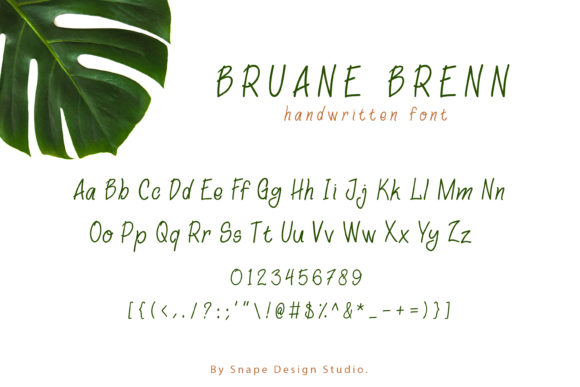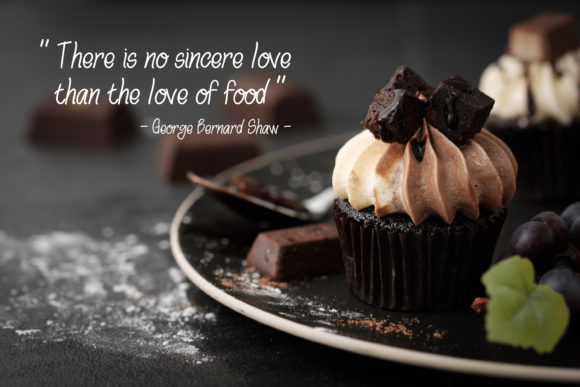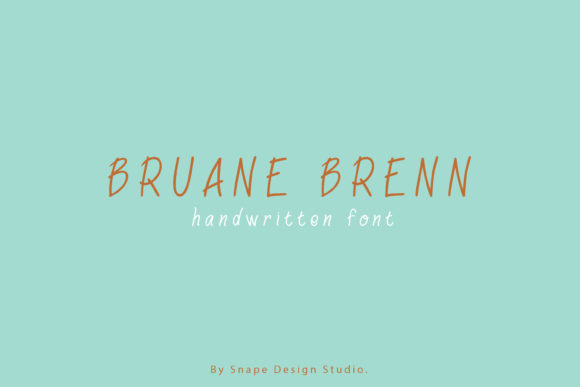
Bruane Brenn Font: A Sweet and Simple Handwritten Typeface
In the world of typography, a good font can make all the difference in the success of a design project. For designers and crafters looking for a typeface that is both sweet and simple, Bruane Brenn Font is an excellent choice. This handwritten font offers support for all characters of the English language, making it a versatile and practical option for a wide range of creative projects.
What is Bruane Brenn Font?
Bruane Brenn Font is a beautiful, handwritten typeface that is perfect for creating cute and classic designs. Its simple yet elegant design makes it suitable for a variety of applications, from digital projects to print materials. Whether you’re working on a logo, a poster, a card, or a website, Bruane Brenn Font is a great choice.
Key Features of Bruane Brenn Font
• Support for all English characters: Bruane Brenn Font supports all characters of the English language, making it a reliable choice for designers who need to create text in multiple languages.
• Sweet and simple design: The font’s handwritten design is both sweet and simple, making it perfect for creating cute and classic designs.
• Versatile: Bruane Brenn Font is suitable for a wide range of creative projects, from digital projects to print materials.
• Elegant: The font’s elegant design makes it perfect for creating sophisticated and professional-looking designs.
Use Cases for Bruane Brenn Font
Bruane Brenn Font is a versatile typeface that can be used in a variety of creative projects. Here are some use cases where Bruane Brenn Font is particularly well-suited:
• Logo design: Bruane Brenn Font is perfect for creating logos that are cute, classic, and elegant.
• Poster design: The font’s simple yet elegant design makes it suitable for creating posters that are both eye-catching and sophisticated.
• Card design: Bruane Brenn Font is a great choice for creating cards that are personal and heartfelt.
• Website design: The font’s clean and elegant design makes it perfect for creating websites that are both modern and user-friendly.
Tips for Using Bruane Brenn Font
Here are some tips for using Bruane Brenn Font effectively in your design projects:
• Pair it with other fonts: Bruane Brenn Font can be paired with other fonts to create a unique and interesting design.
• Use it for headings and titles: The font’s elegant design makes it perfect for creating headings and titles that are both eye-catching and sophisticated.
• Experiment with different colors: Bruane Brenn Font looks great in a variety of colors, so don’t be afraid to experiment and find the perfect color for your design.
In conclusion, Bruane Brenn Font is a sweet and simple handwritten typeface that is perfect for creating cute and classic designs. Its support for all English characters, elegant design, and versatility make it a great choice for designers and crafters looking for a reliable and practical font. Whether you’re working on a logo, a poster, a card, or a website, Bruane Brenn Font is a great option to consider.
Overall, Bruane Brenn Font is a great choice for designers and crafters looking for a sweet and simple handwritten typeface. Its versatility, elegance, and practicality make it a great option for a wide range of creative projects.